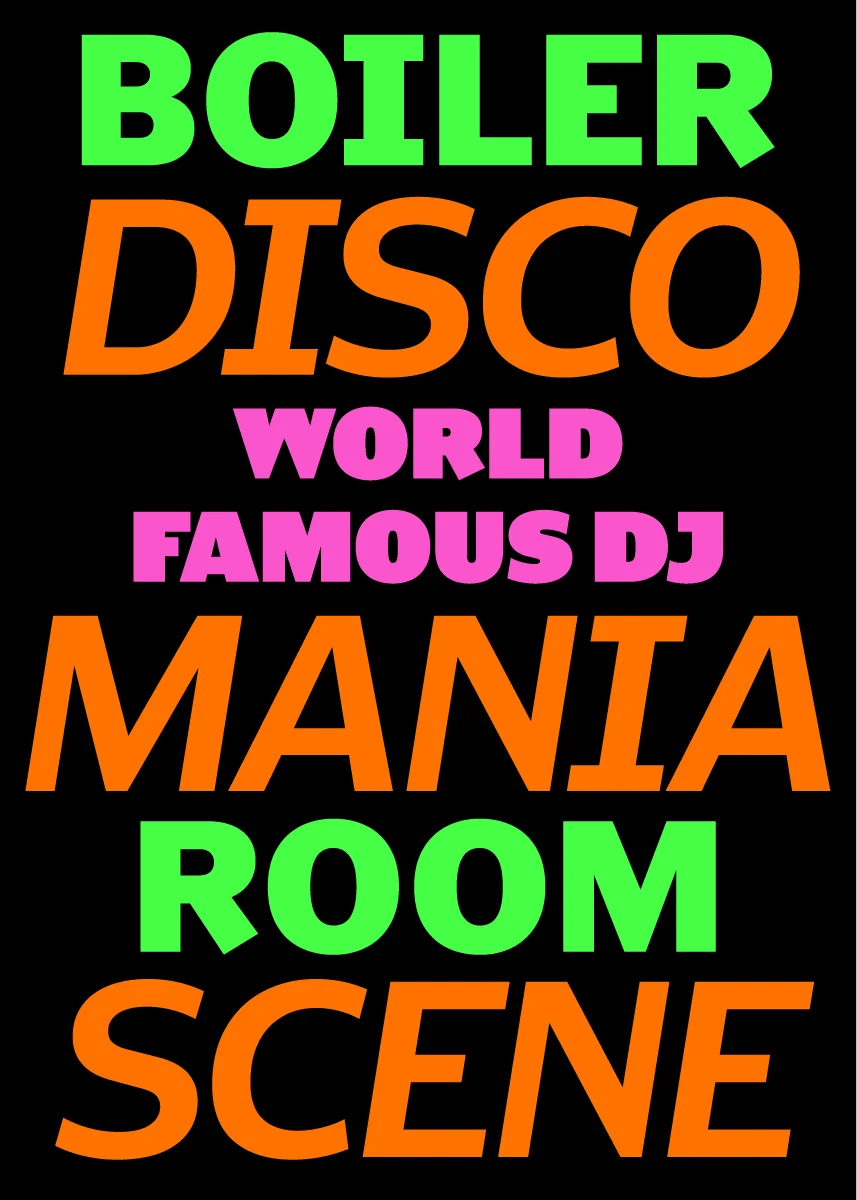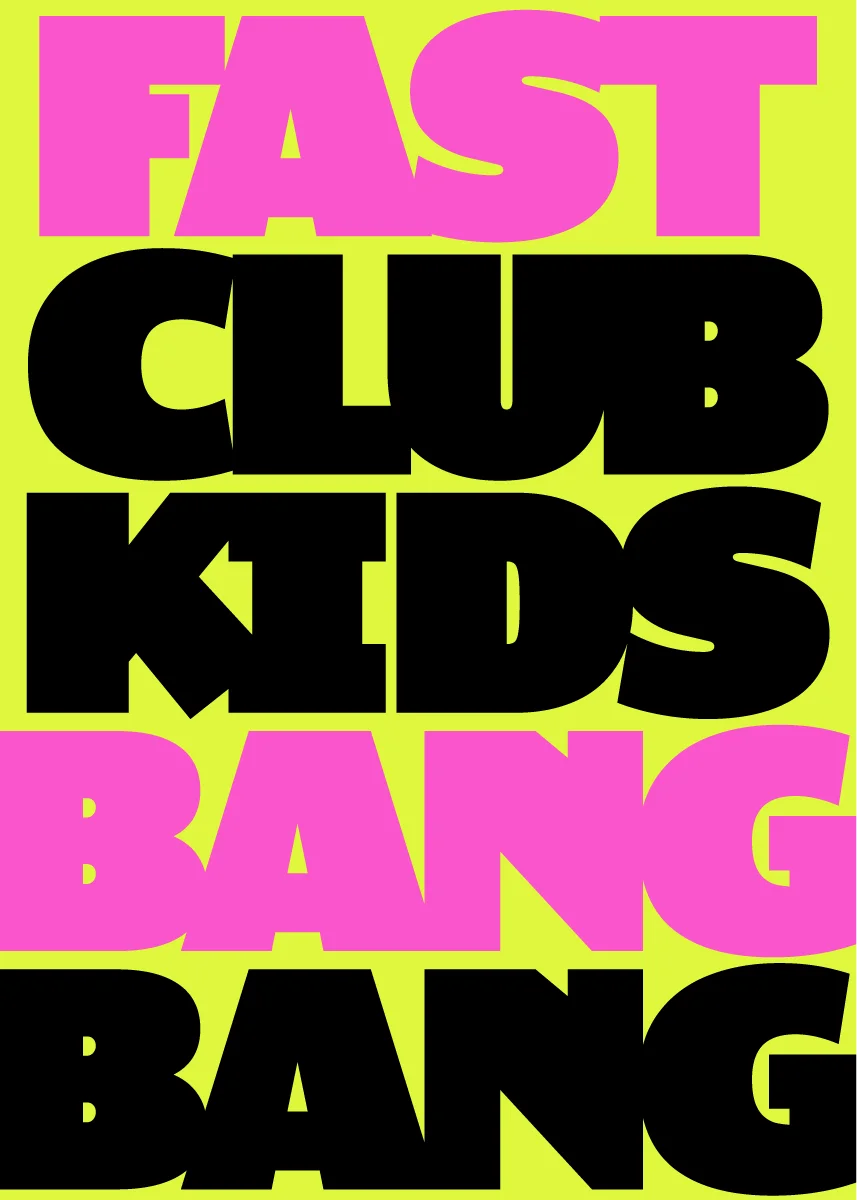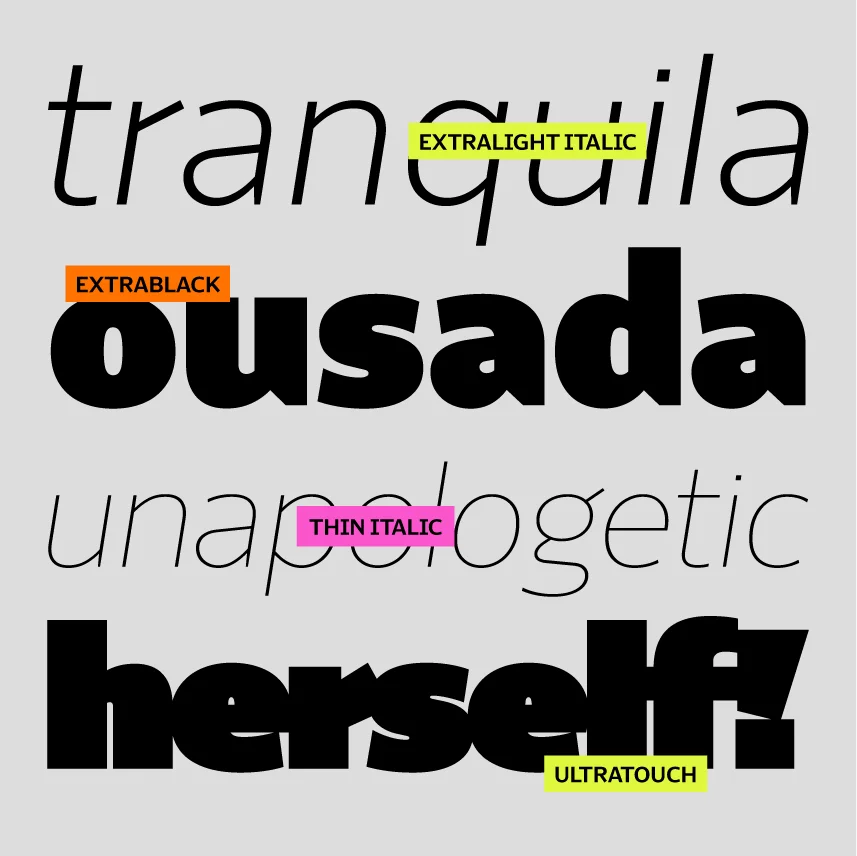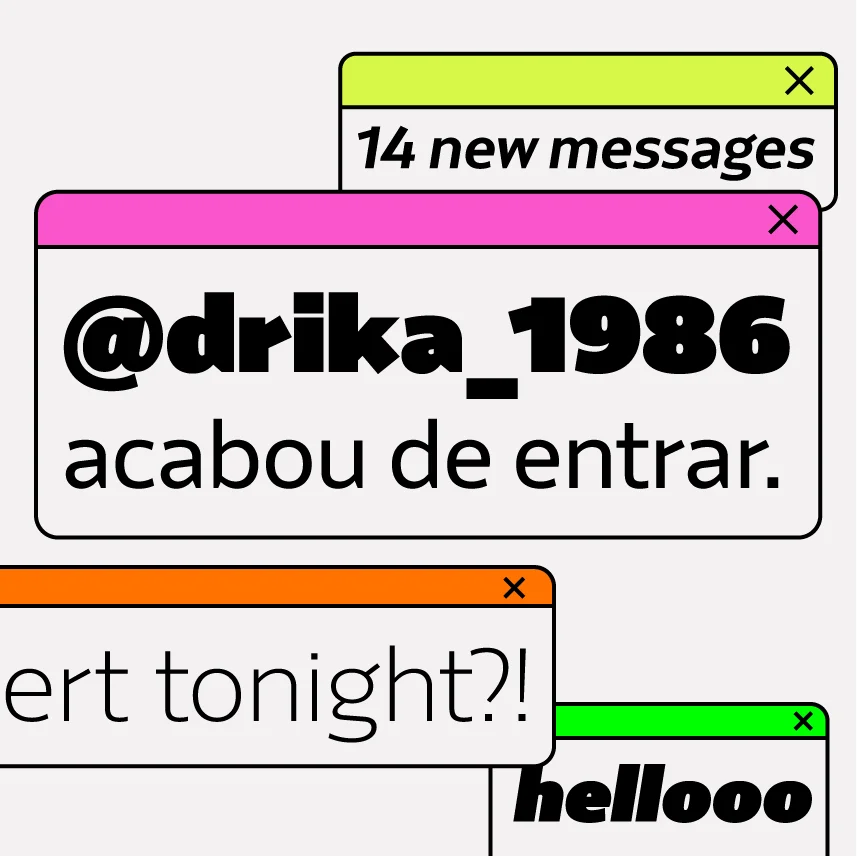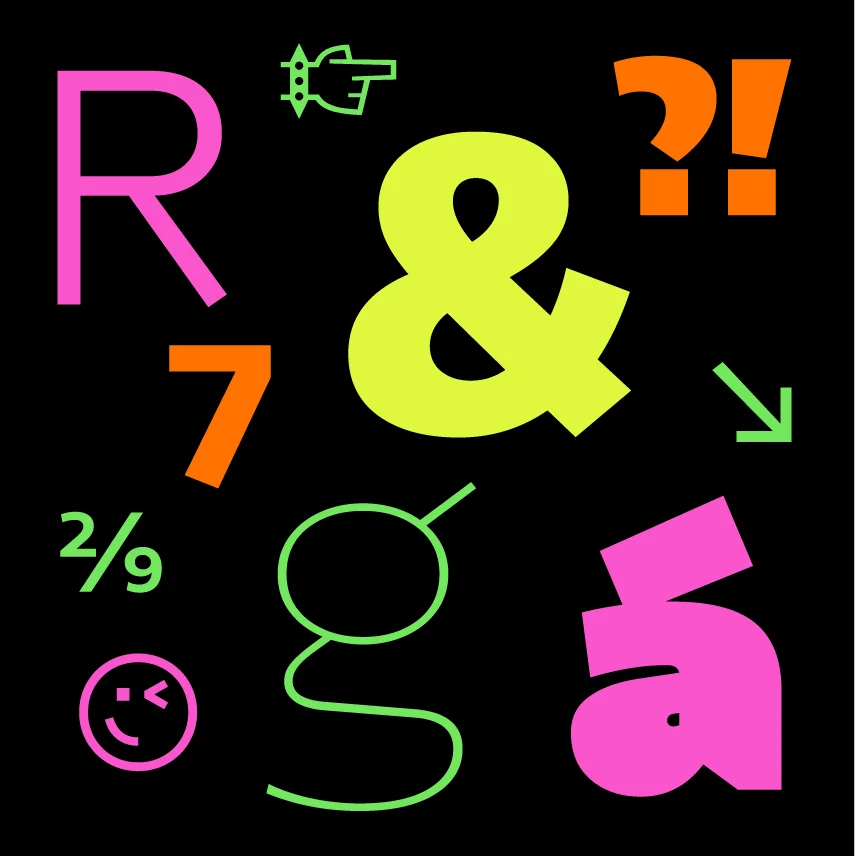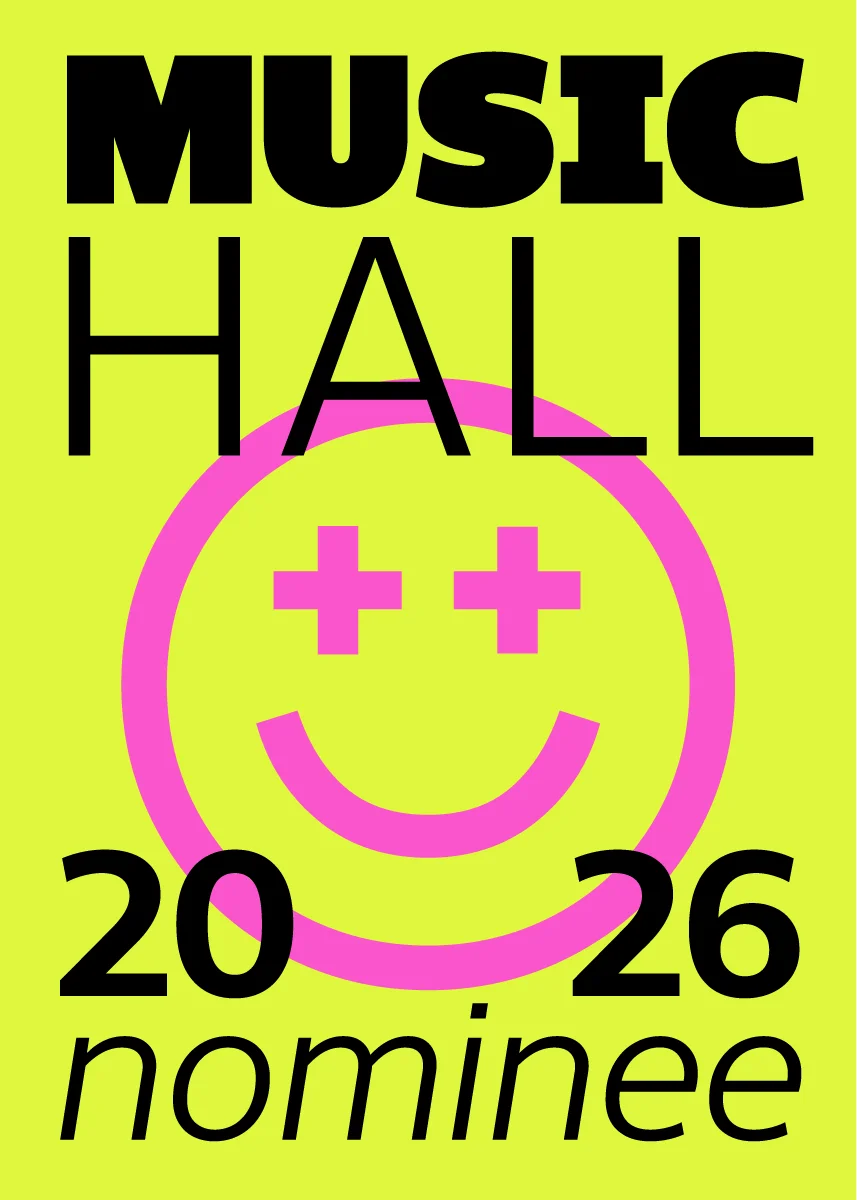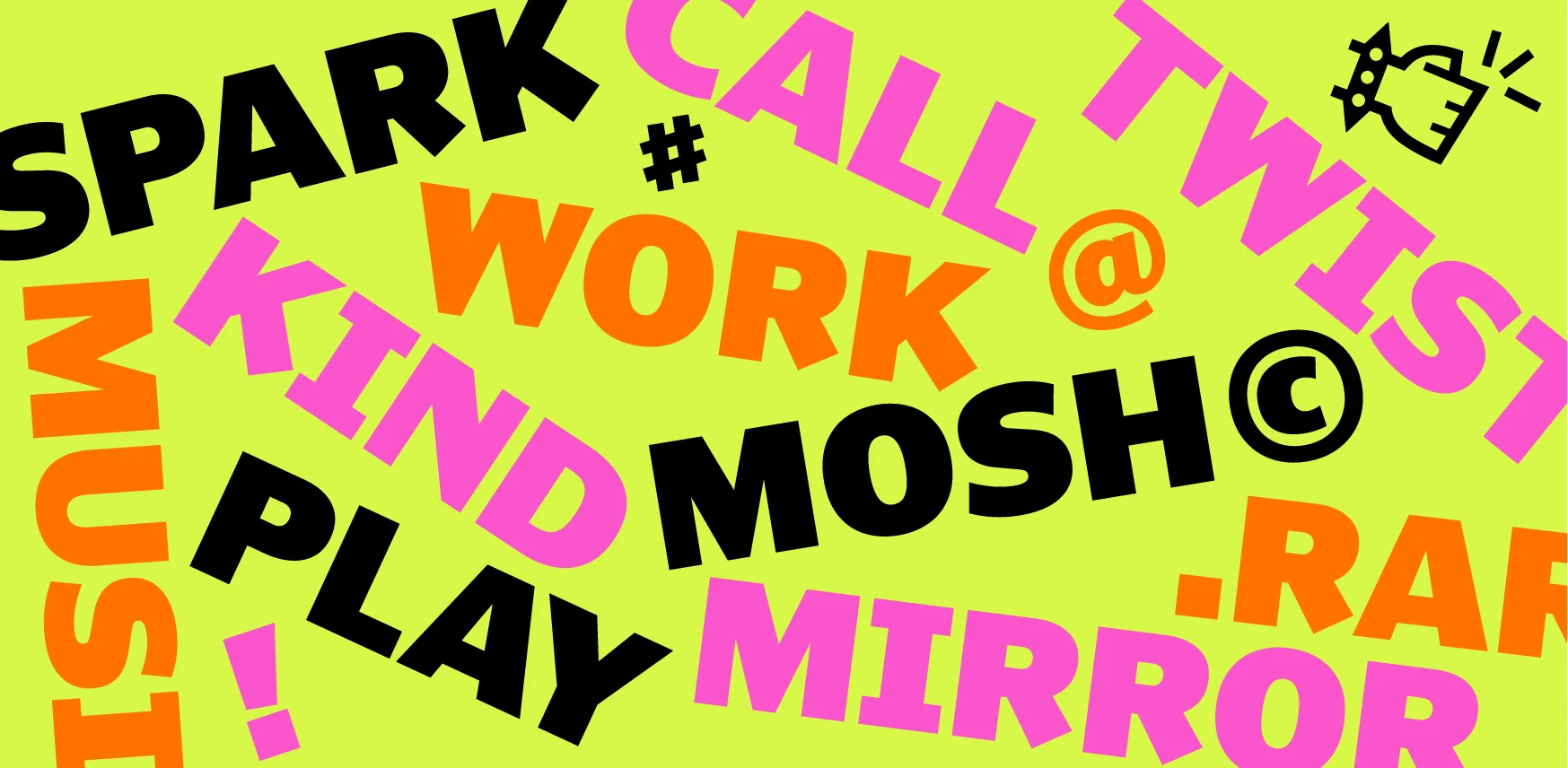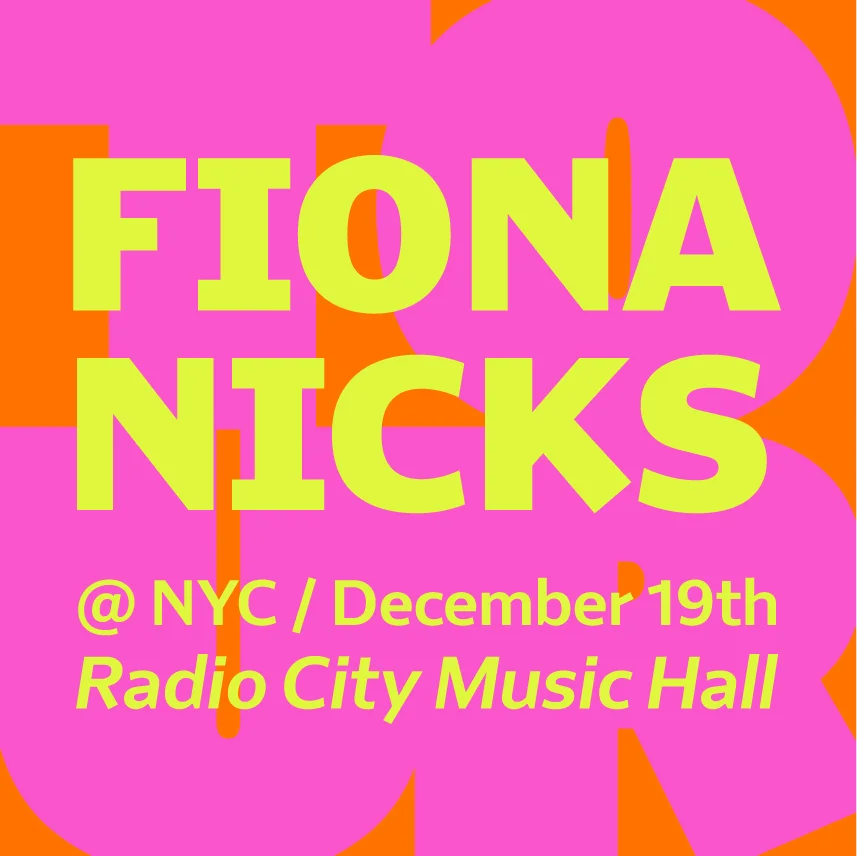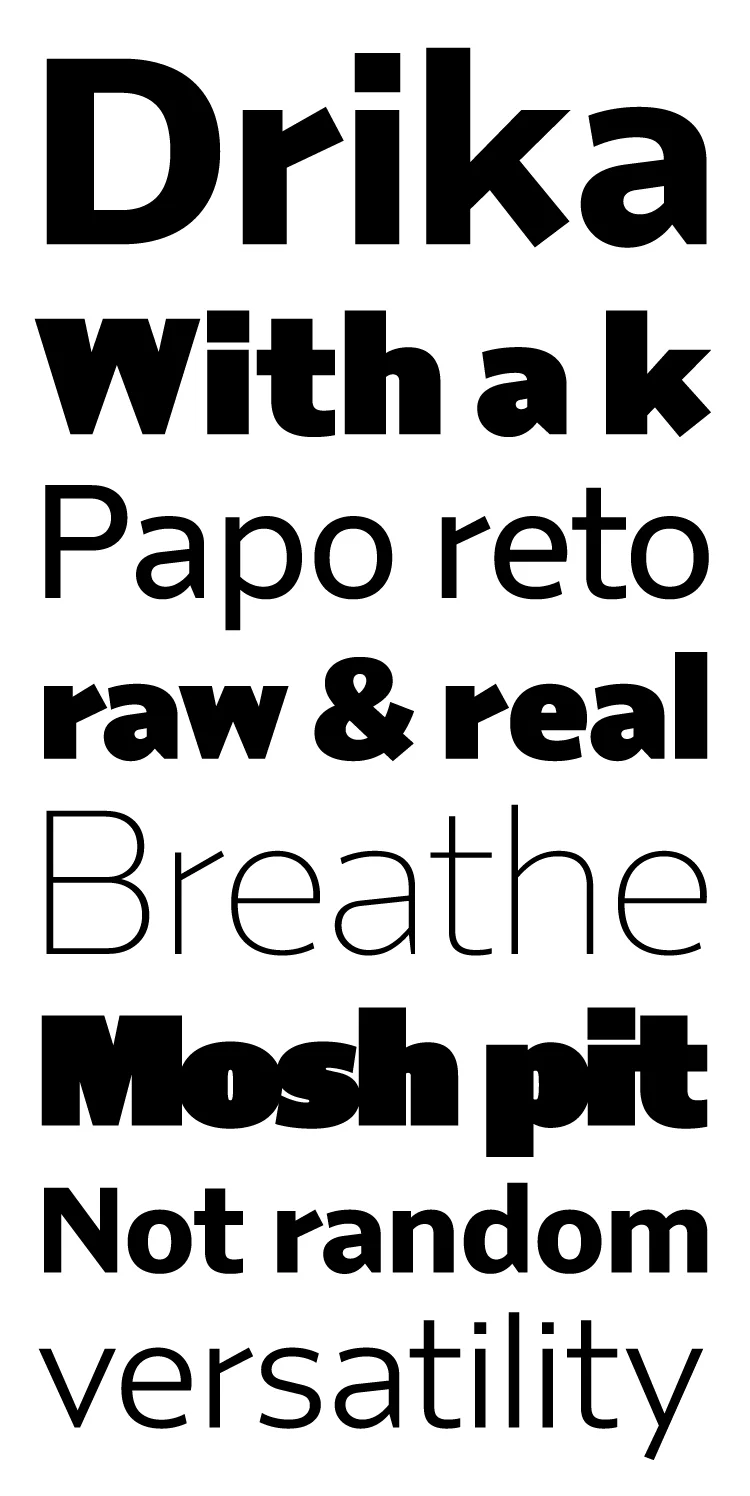
Drika
Drika, with a k. A typeface with a story to tell. And it’s quite a story, because what she carries most is versatility.
14 weights that express the lightness of a whisper in your ear and the force of a shout that moves multitudes. In. The. Same. Type.
Legibility and expressiveness aren’t opposites for Drika. She works. Period. And she leaves her mark!
Drika’s strokes carry a raw, real aesthetic, steering clear of overly polished finishes to embrace unique expressions.
She’s full of personality. She likes to surprise. Some of Drika’s diagonals end at an unexpected angle, cutting through our expectations. But of course she has alternative versions for those who prefer straight talk.
In the heaviest weights, Drika is not afraid to push past the limits: letters might overlap in a hug or collide in a mosh pit. But she knows the way back.
Versatility is her word. It’s not random, it’s life.
This is Drika. A sans unafraid of being.